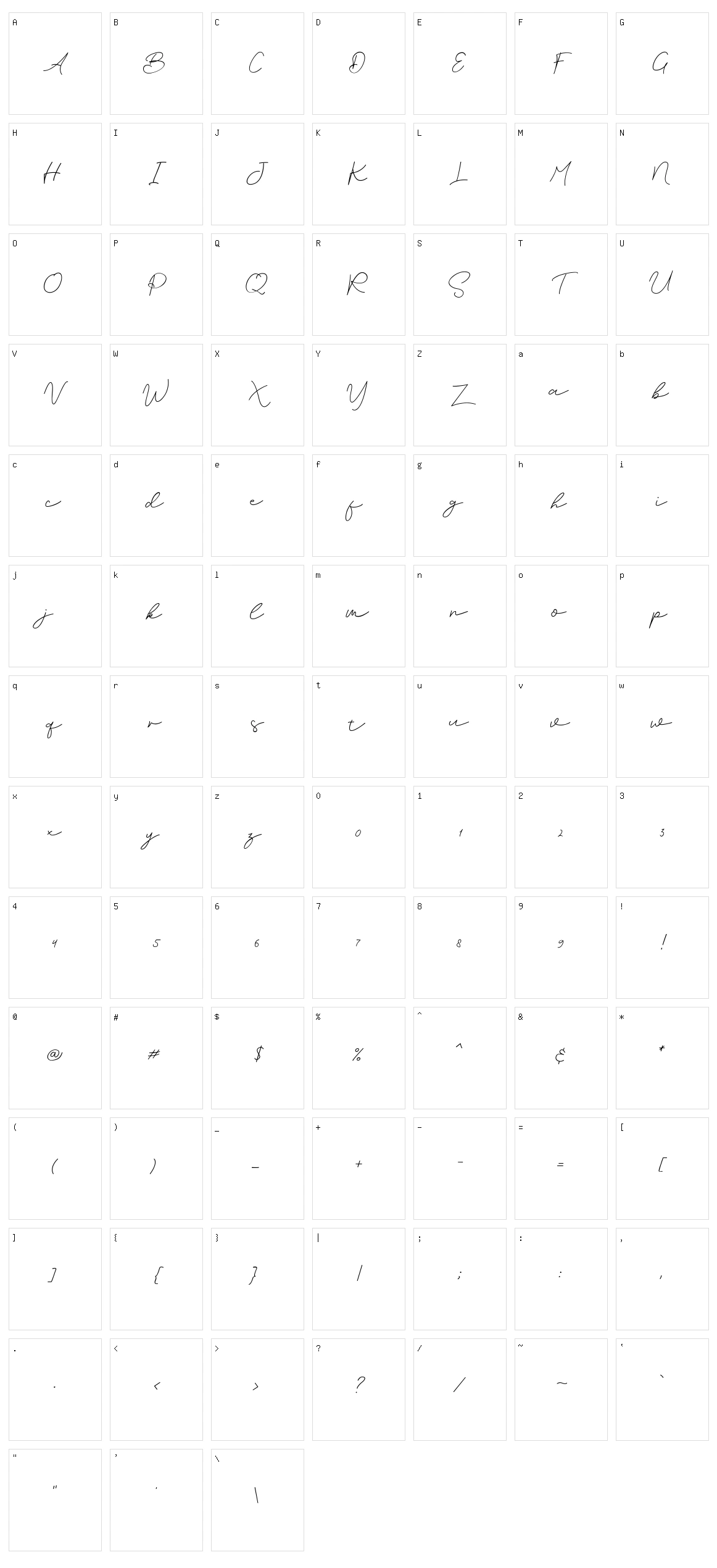
The free font Brian Strait is carefully designed by Masanis Studio, showcasing a thoughtful balance of creativity and usability and falls under the Script font style. When you download the ZIP file, it contains only 36.15 KB of font files, making it lightweight and quick to download. Please review the license details below to understand permitted usage and distribution rights. If license information is not available, we recommend using this font for personal projects only or contacting the author directly for commercial usage permissions.